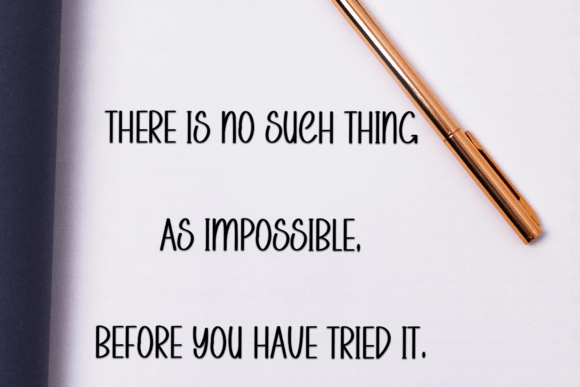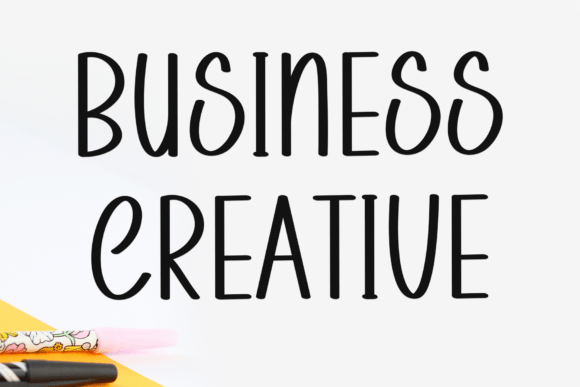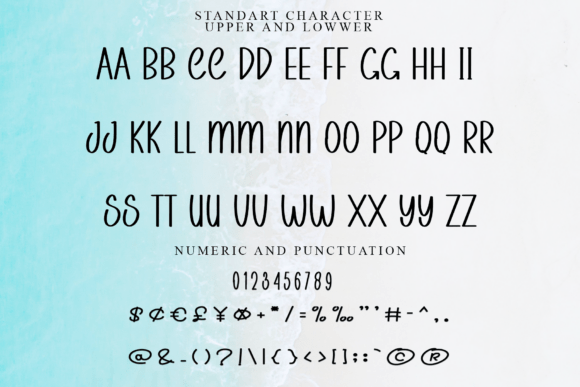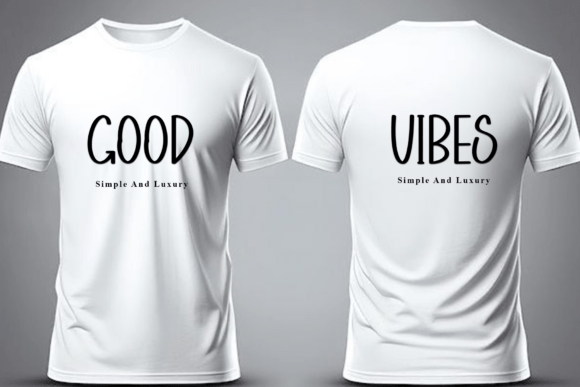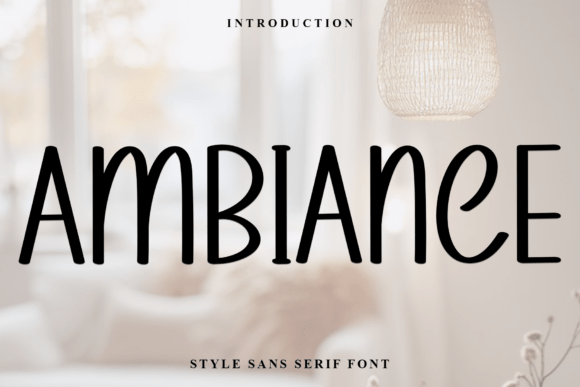
Discover the Elegance of Ambiance Font: Redefining Modern Minimalism
In the world of typography, few fonts manage to strike a balance between modern minimalism and artistic flair. Ambiance Font is one such exceptional typeface that has been making waves in the design community. With its sleek, high-character sans serif design, Ambiance redefines the essence of modern minimalism, offering a unique blend of clean legibility and sophisticated creativity.
Key Characteristics of Ambiance Font
Ambiance Font is characterized by its tall, slender letterforms that exude elegance and refinement. One of the standout features of this font is its distinctive “looping” connections, most notably in the letter “e”. This unique touch adds an artistic flair to the typeface, setting it apart from more conventional sans serif fonts. The consistent monoline weight and vertical posture of Ambiance ensure a polished, professional look that feels both warm and undeniably chic.
Perfect for Modern Lifestyle Branding
Ambiance Font is an excellent choice for modern lifestyle branding, thanks to its clean lines, elegant letterforms, and sophisticated vibe. Brands that value atmosphere and refined simplicity will find Ambiance to be an ideal fit. Whether you’re designing a logo, creating editorial content, or crafting a high-end web interface, Ambiance offers the perfect blend of style and legibility.
Interior Design and Editorial Use
Interior designers and editorial creatives will particularly appreciate Ambiance Font’s unique aesthetic. Its tall, slender letterforms and looping connections make it perfect for headlines, titles, and key messaging in interior design projects, editorials, and high-end publications. Ambiance adds a touch of luxury and sophistication to any design project, elevating the overall visual impact.
Web Interfaces and Digital Applications
In the digital realm, Ambiance Font shines in high-end web interfaces, offering a polished and professional look that enhances user experience. Its clean legibility and sophisticated vibe make it an excellent choice for digital applications, including websites, mobile apps, and online publications. Ambiance ensures that your digital presence exudes elegance and refinement, setting your brand apart in a crowded online landscape.
Why Choose Ambiance Font?
So, why choose Ambiance Font for your design projects? Here are a few compelling reasons:
- Unique Aesthetic: Ambiance offers a distinctive blend of modern minimalism and artistic flair, making it perfect for brands that value refined simplicity.
- Clean Legibility: The font’s clean lines and elegant letterforms ensure excellent legibility, even at smaller sizes.
- Sophisticated Vibe: Ambiance exudes a polished, professional look that feels both warm and undeniably chic.
- Versatility: Ambiance is suitable for a wide range of design applications, from modern lifestyle branding to interior design, editorial content, and high-end web interfaces.
Ambiance Font is a game-changer for designers and crafters seeking a typeface that embodies modern minimalism with a touch of artistic flair. Its unique aesthetic, clean legibility, and sophisticated vibe make it an excellent choice for a wide range of design projects. Whether you’re working on modern lifestyle branding, interior design, editorial content, or high-end web interfaces, Ambiance Font is sure to elevate your design to new heights.
Discover the elegance of Ambiance Font and experience the perfect blend of style, legibility, and sophistication. Add Ambiance to your typography arsenal and redefine the essence of modern minimalism in your design projects.